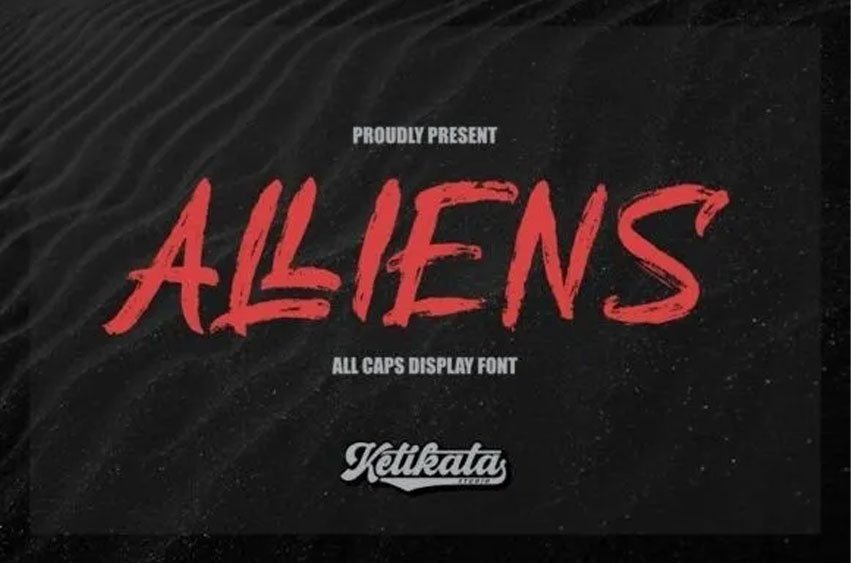
Alliens Font is a strong display font, with extra attention to quick strokes and sharp details. Alliens is ideal for logos, apparel, t-shirts, hoodies, quotes, product packaging, or anything that needs a typographic turbo-boost and you’ll get a unique swash to accompany the font.